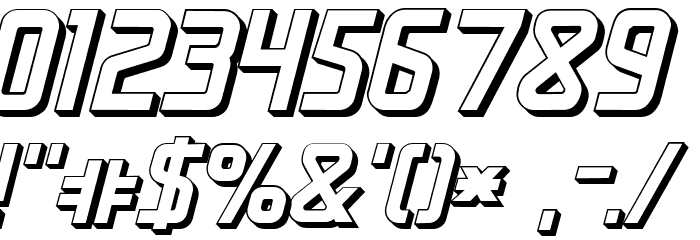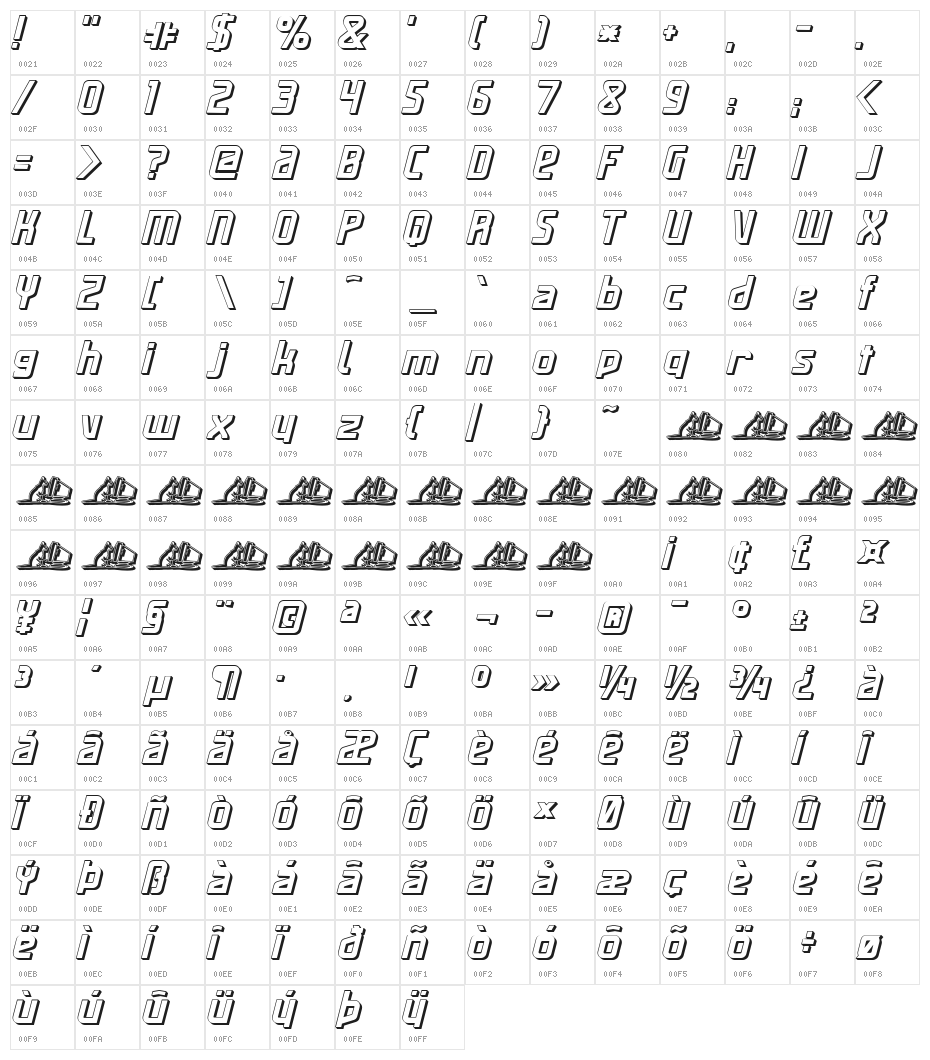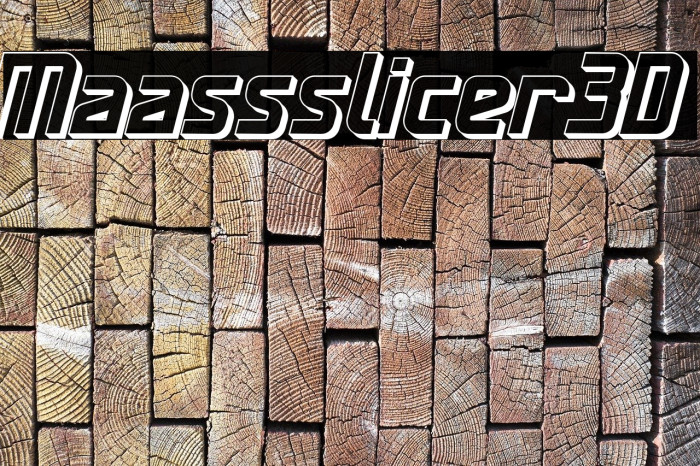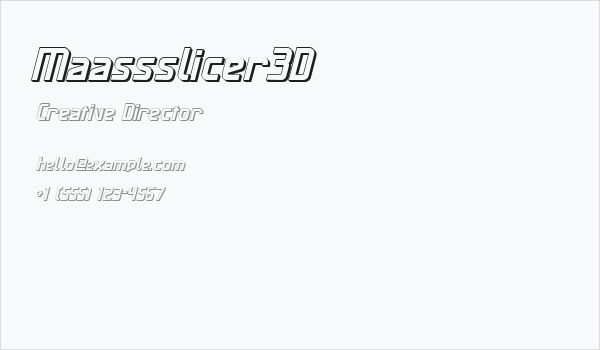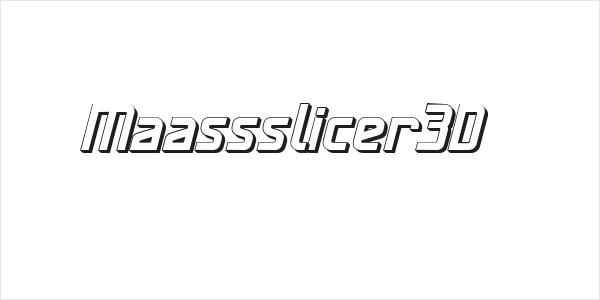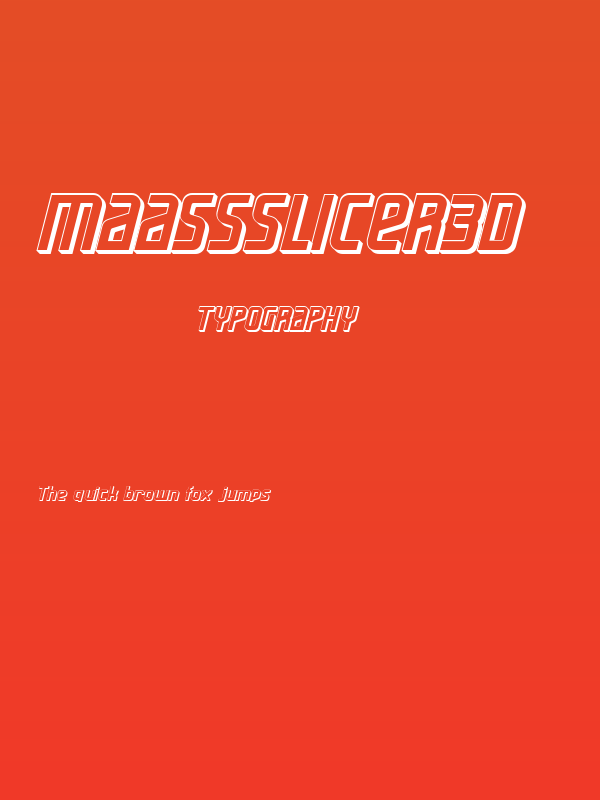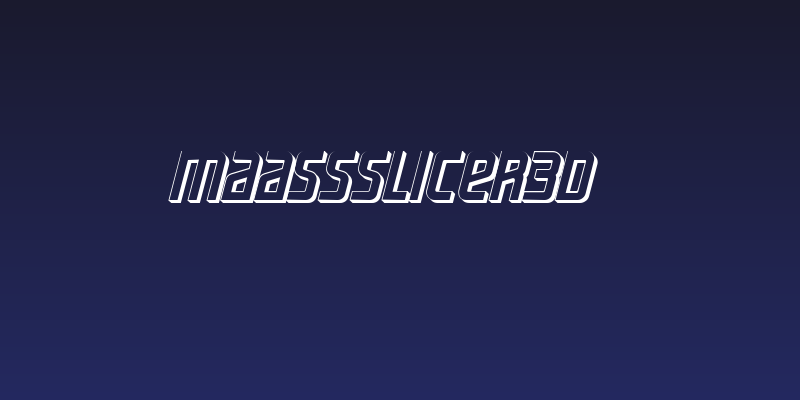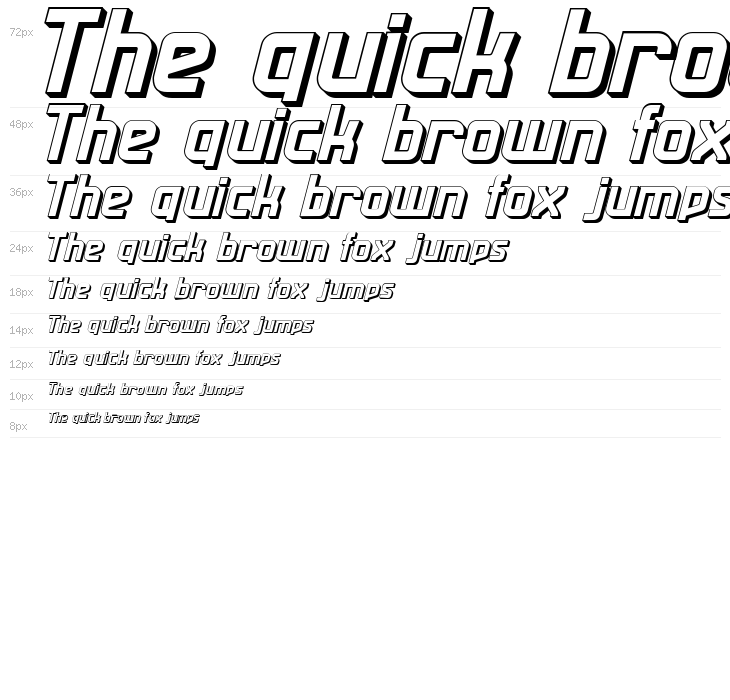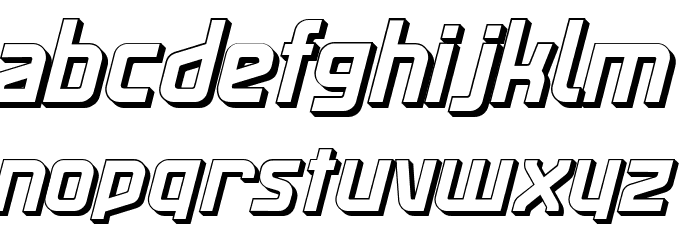
Maassslicer3D Font
Maassslicer3D Description
This font features a bold, three-dimensional appearance with a distinct shadow effect that gives it a dynamic and modern look. The characters are slightly condensed, with sharp angles and clean lines that convey a sense of speed and movement. The uppercase and lowercase letters maintain a consistent style, while the numerals and special characters complement the overall design. The font's geometric structure and bold presence make it ideal for attention-grabbing headlines and impactful designs.
| Proposed Projects | Ideal for sports branding, video game titles, dynamic posters, and futuristic designs. |